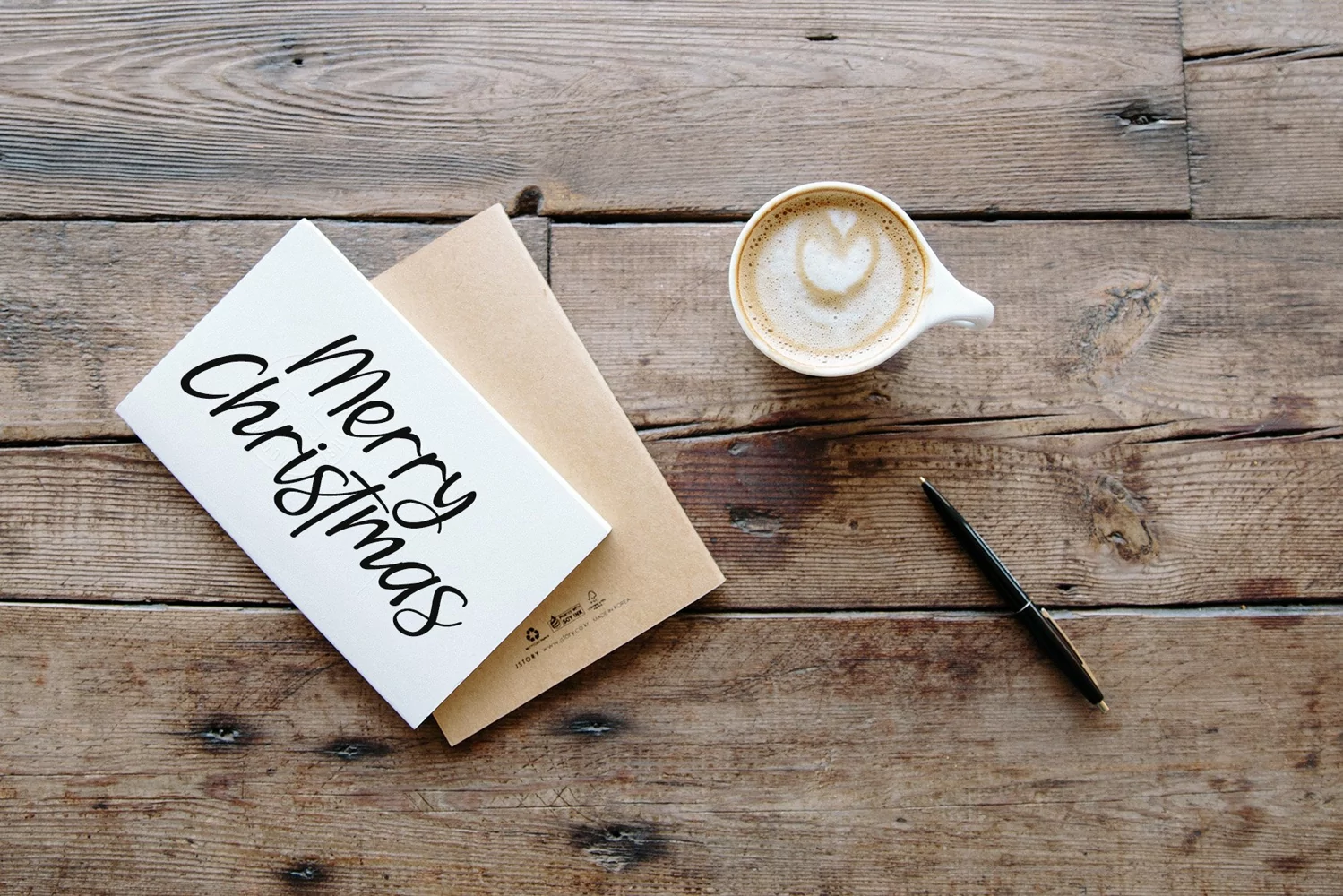
Beautiful Handwritten
Christiano Font is a Handwritten Style font by Letterafa Studio. It has flowing letters that will give your designs a unique and sweet look. Christiano font is perfect; logos, greeting cards, a package design, a brand identity, craft design, any DIY project, book title, wedding invitation, packaging, and more.